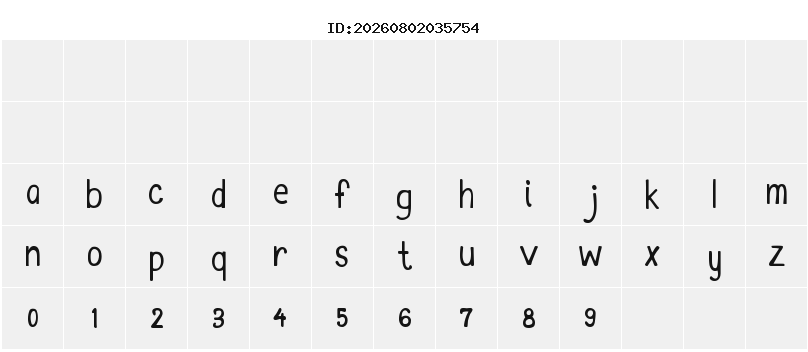
MTF Kim Preview
• Font Name: MTF Kim
• Designer: Miss Tiina
About MTF Kim.ttf
MTF Kim.ttf is a modern, elegant sans-serif font designed for ultimate readability and visual harmony. Perfect for branding, headlines, web design, and print materials.